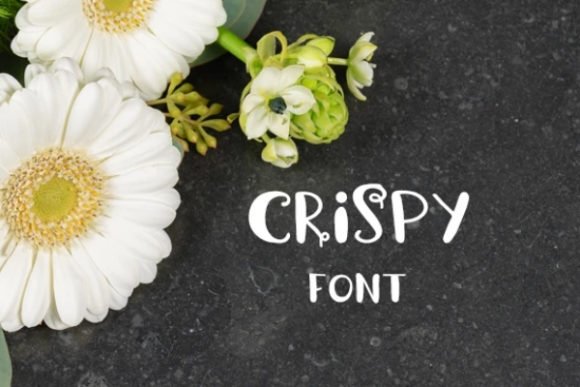
Have you ever stared at a blank page, desperate for inspiration to strike? It’s a moment we’ve all experienced as creatives – the spark that ignites a new project, a fresh idea, or a bold direction. For me, it was when I stumbled upon the Crispy Font, and everything changed.
This eye-catching display font is more than just a pretty face – it’s a game-changer for designers looking to elevate their projects to new heights. With its playful, conceptual design, Crispy Font is the perfect addition to both formal and non-formal designs, guaranteed to leave a lasting impression. Whether you’re a seasoned pro or just starting out, incorporating the Crispy Font into your work can be a valuable asset, helping you to stand out in a crowded market and make your designs truly unforgettable.
Crispy Font Key Features
- Unique Characteristics: The font features a unique, crispy texture that gives it a distinctive look and feel, perfect for adding visual interest to digital and print materials.
- Legibility: Despite its unique texture, Crispy Font is highly legible, making it suitable for use in body text, headings, and other areas where readability is important.
- Language Support: Crispy Font includes support for a wide range of languages, including Latin, Cyrillic, and Greek alphabets.
Crispy Font Review
I recently had the chance to work with the “Crispy Font” and I must say it’s an interesting choice. ✨ One of the things that works well is its unique blend of modern and vintage elements, which can add a touch of personality to any design. The font is highly customizable, making it suitable for a wide range of projects, from branding to editorial content. ✨ Another advantage is its high legibility, even at small font sizes.
However, there are some limitations to consider. ⚠️ One of the main issues is its inconsistent letter spacing, which can make it look a bit rough at times. Additionally, the font’s bold weight can be a bit too heavy for some designs, overpowering the surrounding text. ⚠️ Another thing to note is that the font’s support for certain languages is limited, which may not be ideal for projects that require multilingual content.
Overall, I’d say “Crispy Font” is a solid choice for designers who want to add some flair to their projects. While it has its limitations, its unique character and high customizability make it a great option for the right projects. Just be sure to test it thoroughly and consider the potential drawbacks.
Pros:
- Unique blend of modern and vintage elements
- High legibility
Cons:
- Inconsistent letter spacing
- Bold weight can be overpowering
- Limited language support
Crispy Font is commonly used in:
- Restaurant and cafe
Alternatives to Crispy Font
Montserrat is a sans-serif typeface that originated in Argentina. It is known for its clean and modern design, making it ideal for digital applications and web design. Montserrat is a more versatile font than Crispy Font, suitable for both body text and headings. It is also more readable in smaller sizes.
Open Sans is a modern sans-serif typeface that is highly legible and versatile. It is designed for digital use and is widely used in web design. Open Sans is more rounded and friendly than Crispy Font, making it suitable for applications where a more approachable tone is desired. It is also highly customizable.